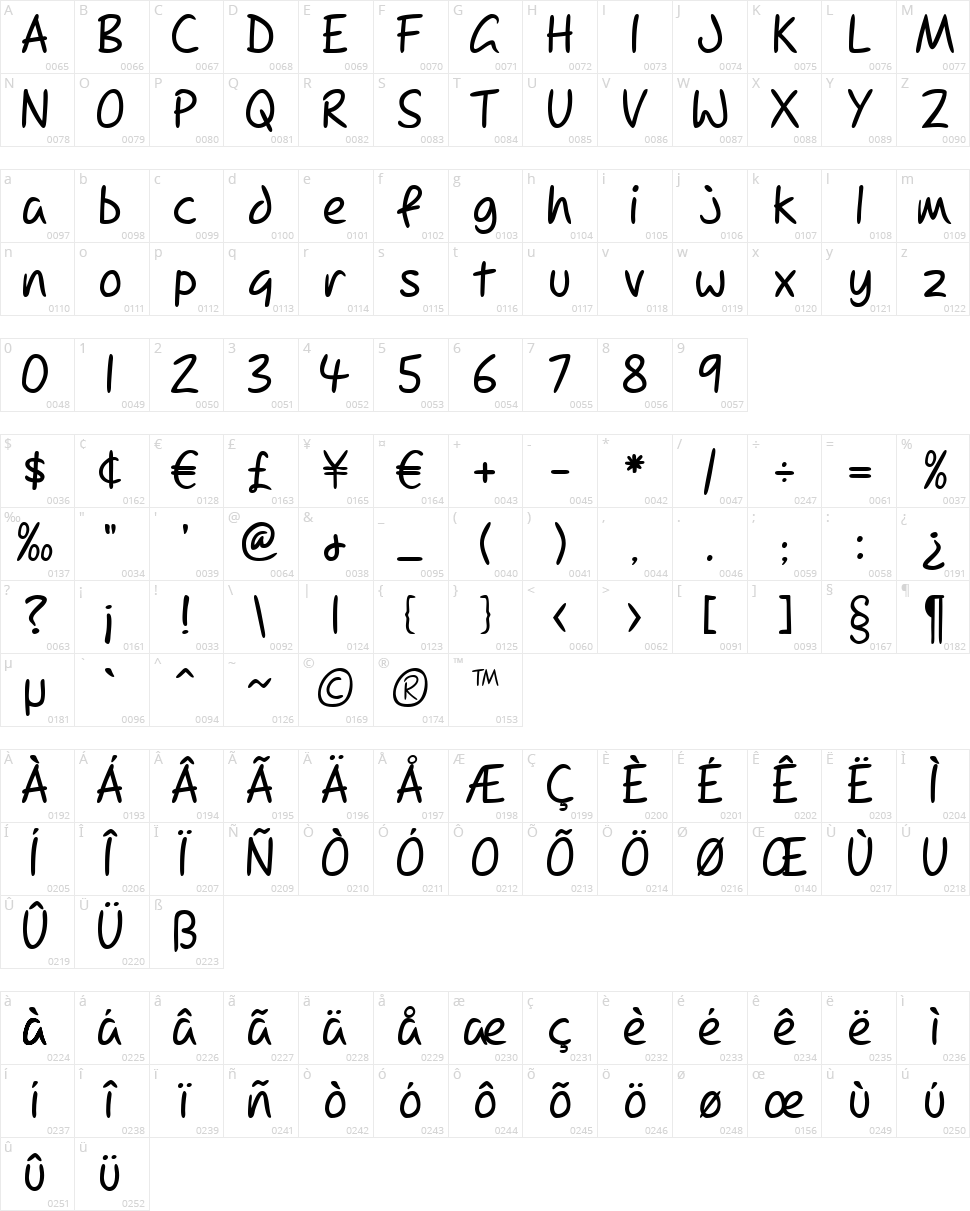
Dupree
Dupree a Dogstar Font
Dupree is a fully featured TrueType font, with over 200 characters (upper and lower case, numerals, foreign characters, punctuation and symbols et al.), based on the hand lettering/printing style of the illustrator Stuart Ritchie. It comes in two styles - Regular and light - and is available for both the Windows and Macintosh platforms.
# Please Note The generic currency symbol ASCII 219 (Mac shiftoption 2 and Windows ALT+0164) has been replaced by the EURO (the new pan european single currency) symbol.